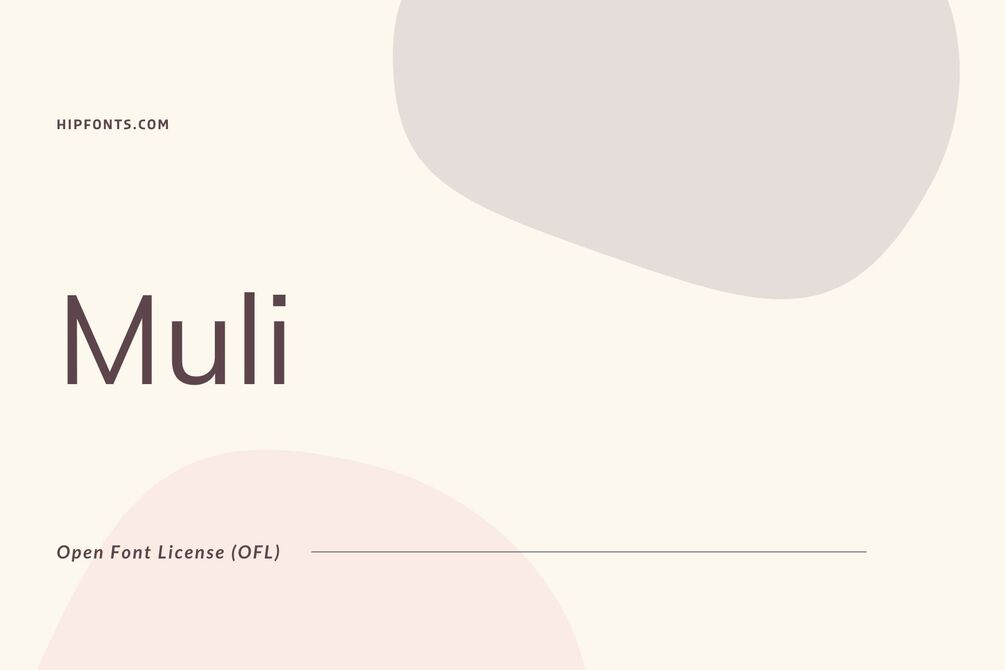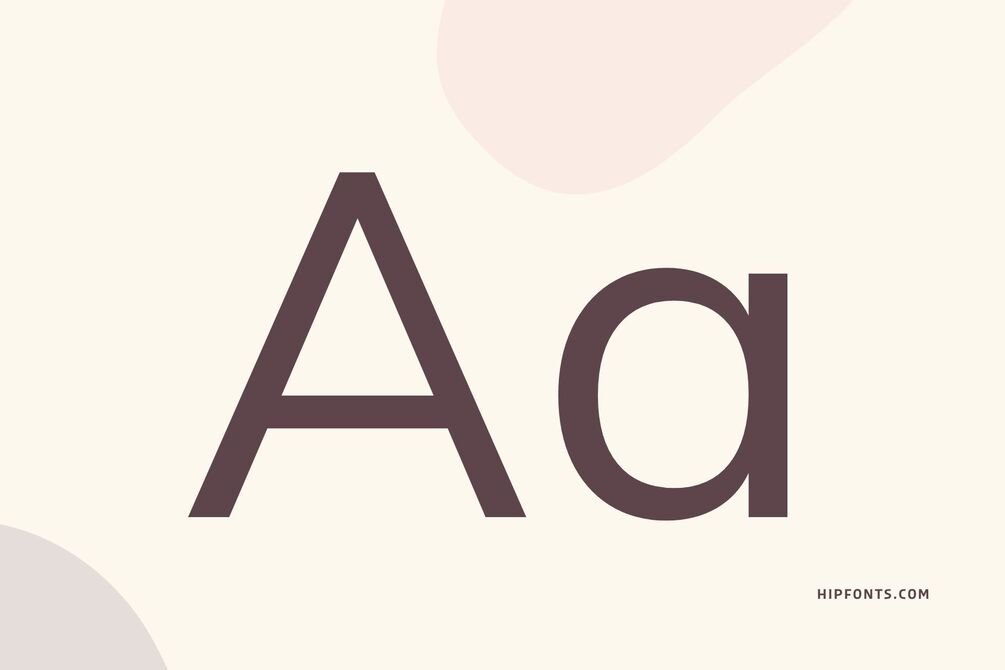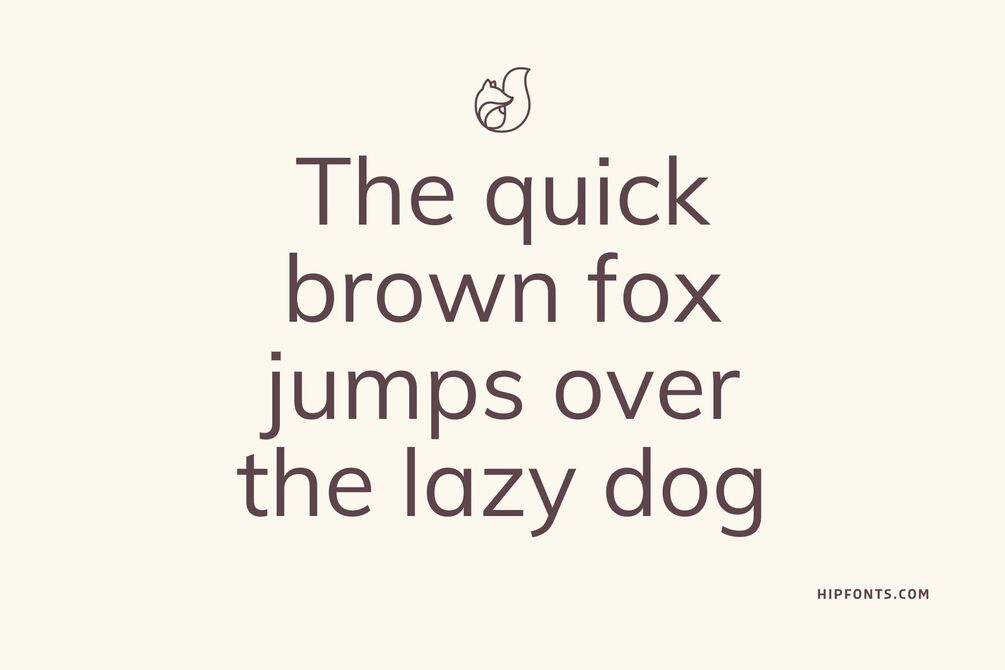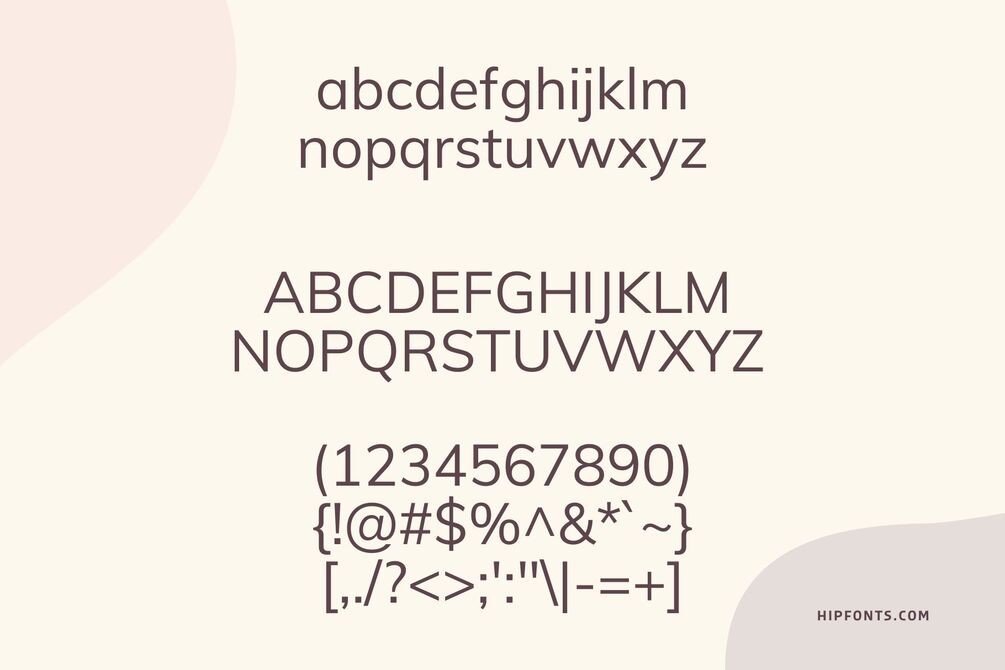
Muli
Muli is a versatile and clean sans-serif font designed by Vernon Adams that offers a balance of simplicity and elegance. Its minimalistic letterforms and neutral design make it suitable for a wide range of design projects.
Muli's extensive character set, including various weights and styles, provides flexibility and allows for creative typography. Whether you're designing a corporate identity, crafting a minimalist website, or creating editorial layouts, Muli's readability and simplicity make it a reliable choice.
Its well-defined letterforms and consistent spacing ensure that your typography is clear and visually appealing. With its modern and timeless aesthetic, Muli brings a sense of sophistication and clarity to your designs.